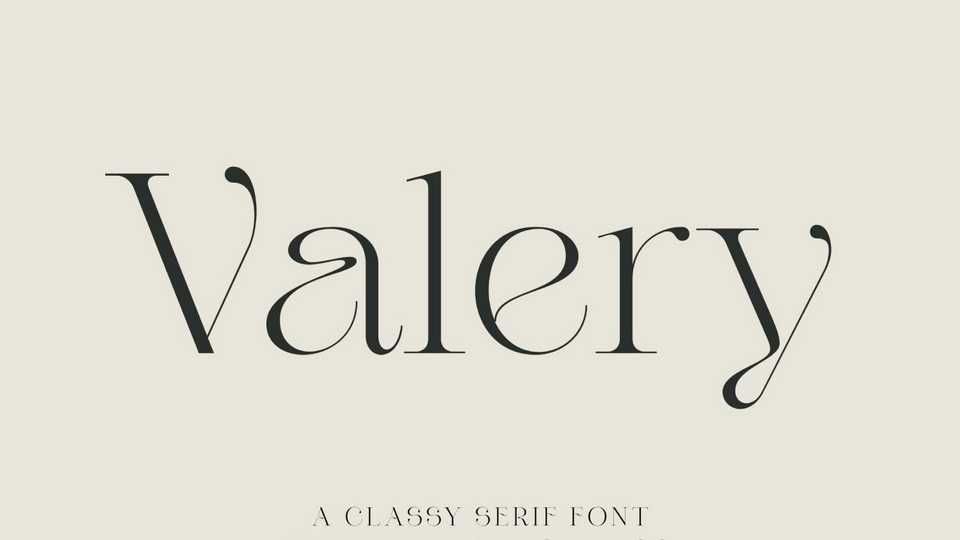
Download Valery font an elegant serif display font with a modern yet luxurious style. Aesthetic and unique letterforms, as well as soft curves are the hallmark of this font.
Designer: Letteralle Studio